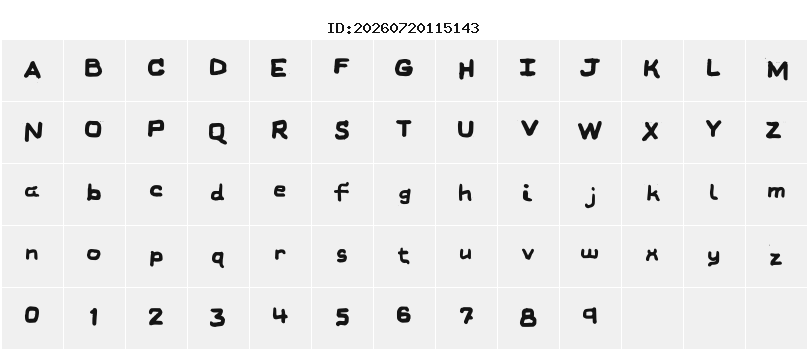
• Font Name: Fun Euro
• Font Style: Schoolhouse
• Full Font Name: Fun Euro Schoolhouse Medium
Fun Euro.ttf is a modern, elegant sans-serif font designed for ultimate readability and visual harmony. Perfect for branding, headlines, web design, and print materials.